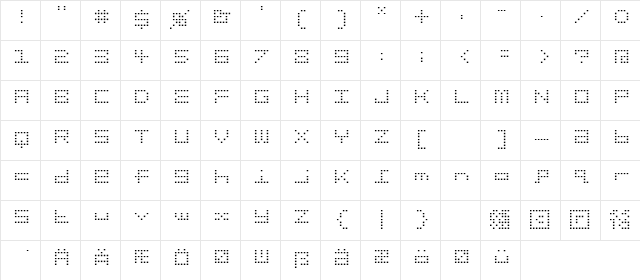
Gridder POS Font Preview
Gridder POS
Design Context for Gridder Typeface
Gridder offers clean, dependable letterforms without strong stylistic allegiance, making it a practical choice for designers who need flexibility.